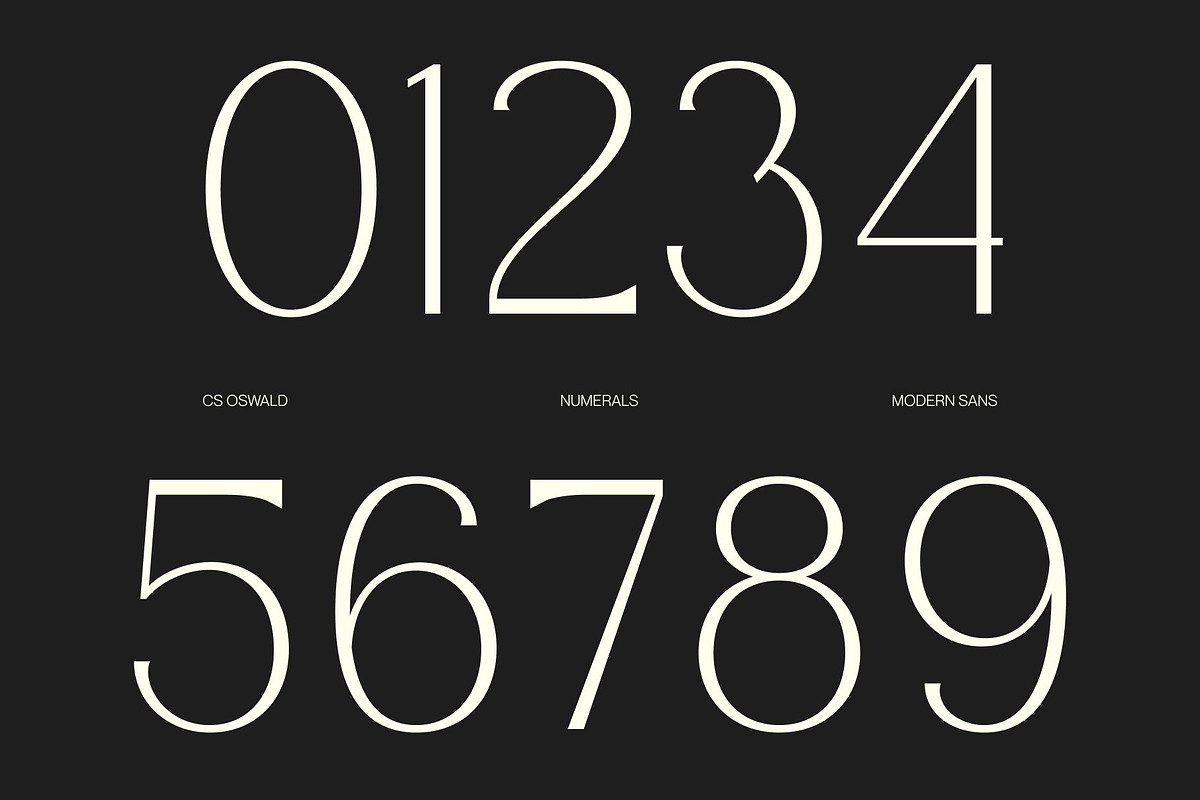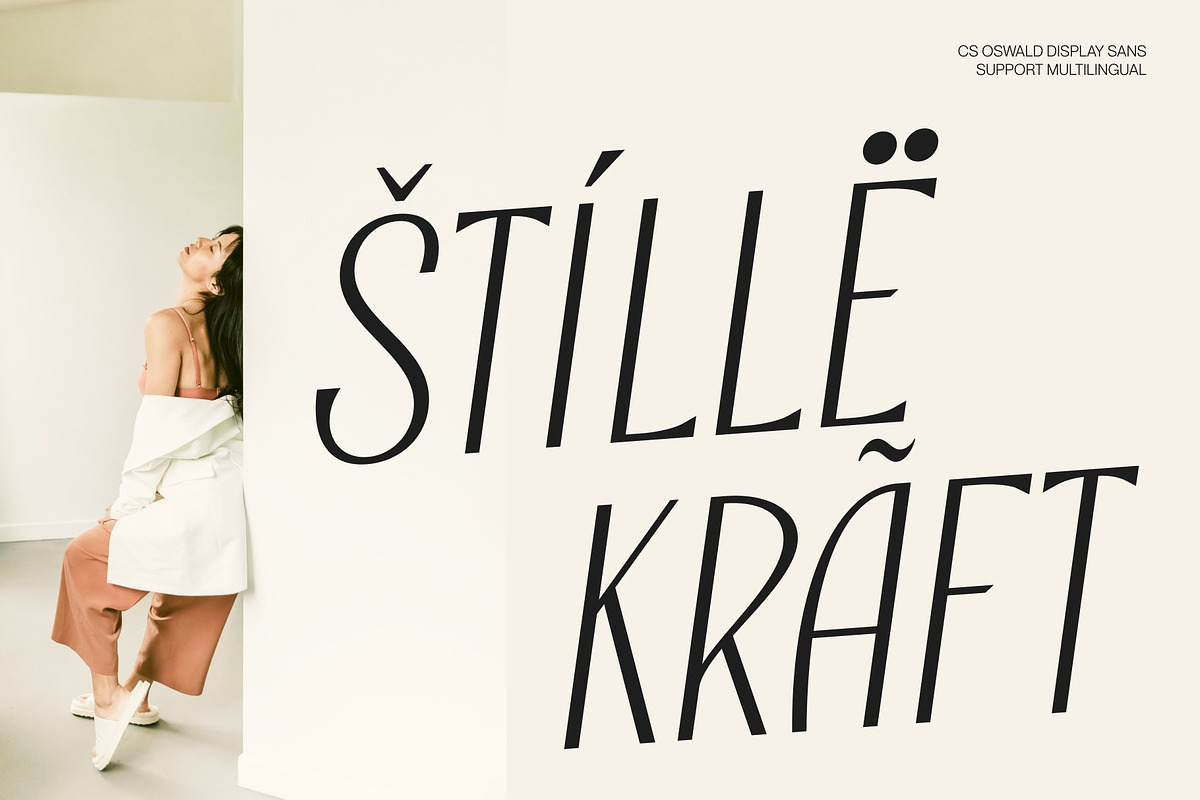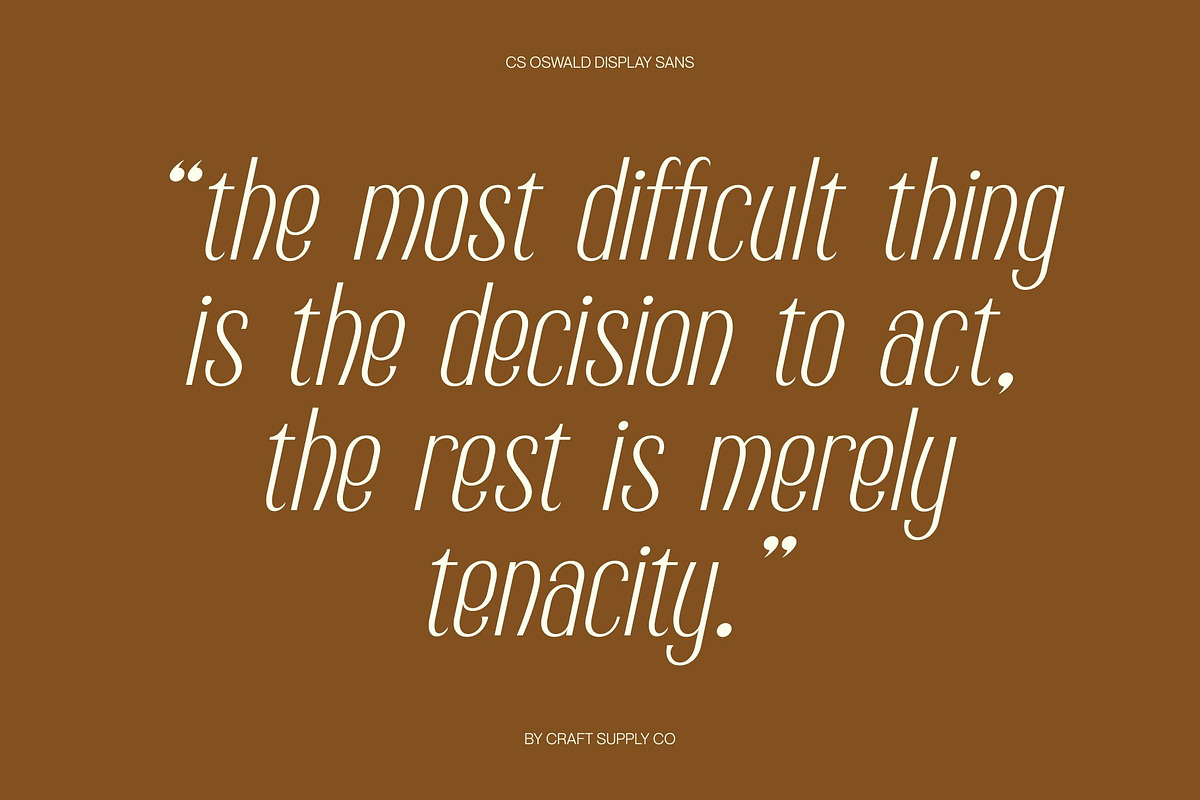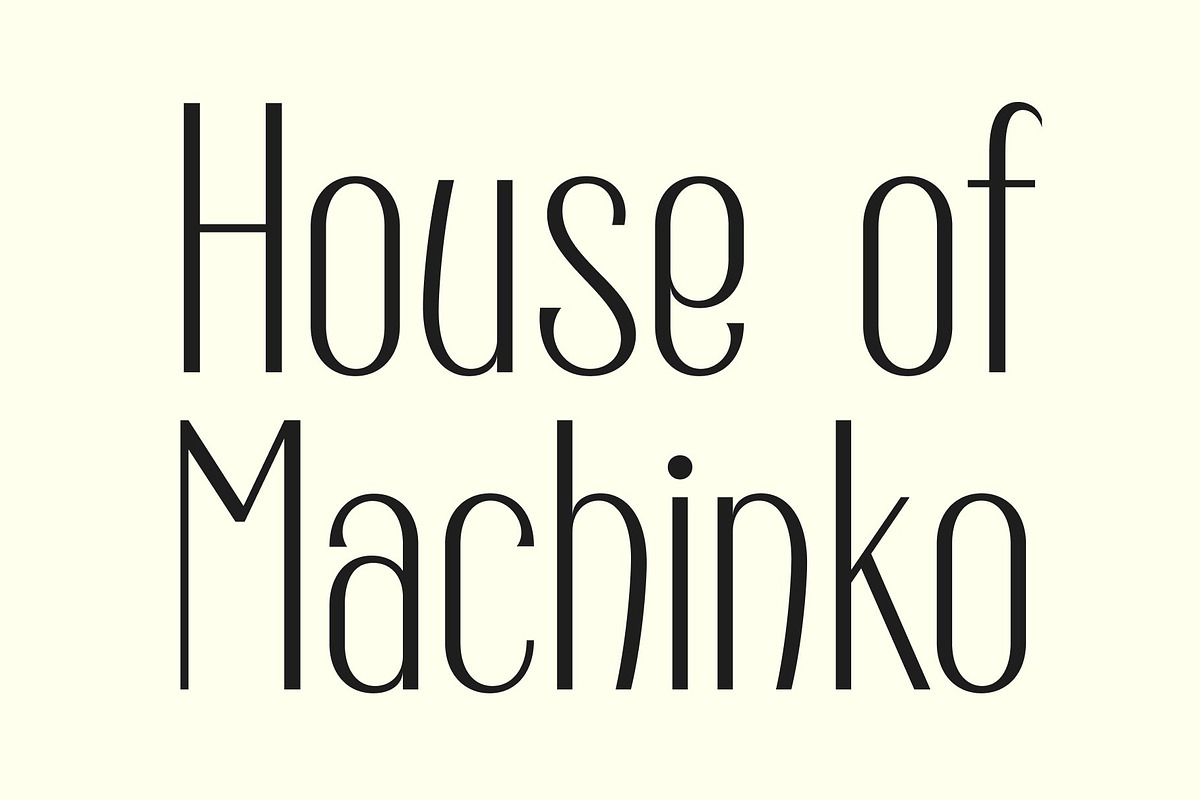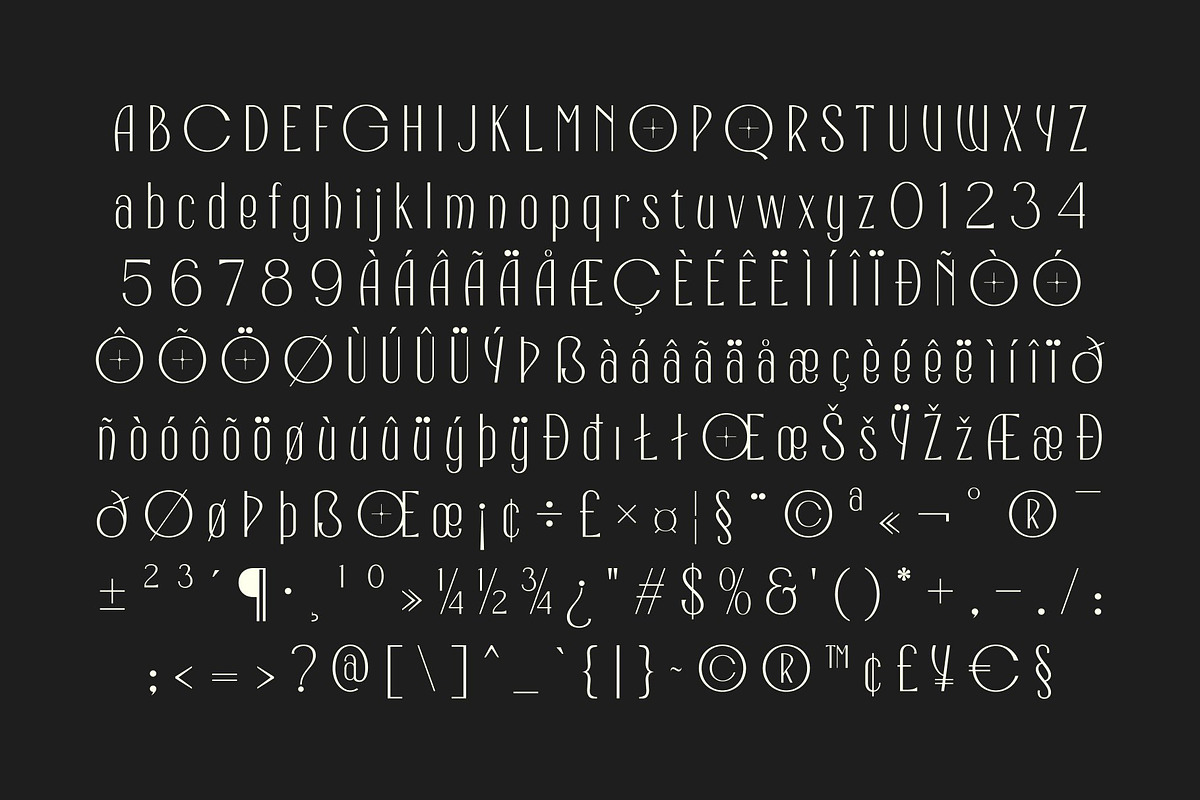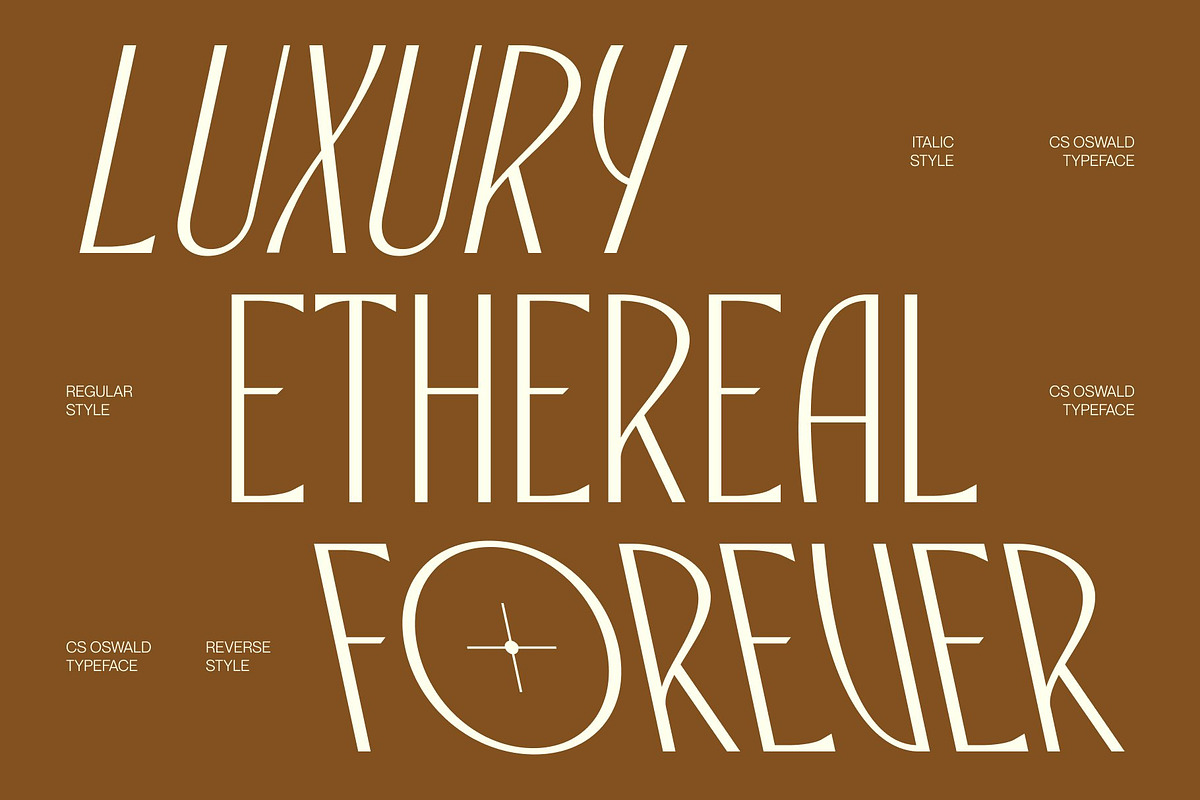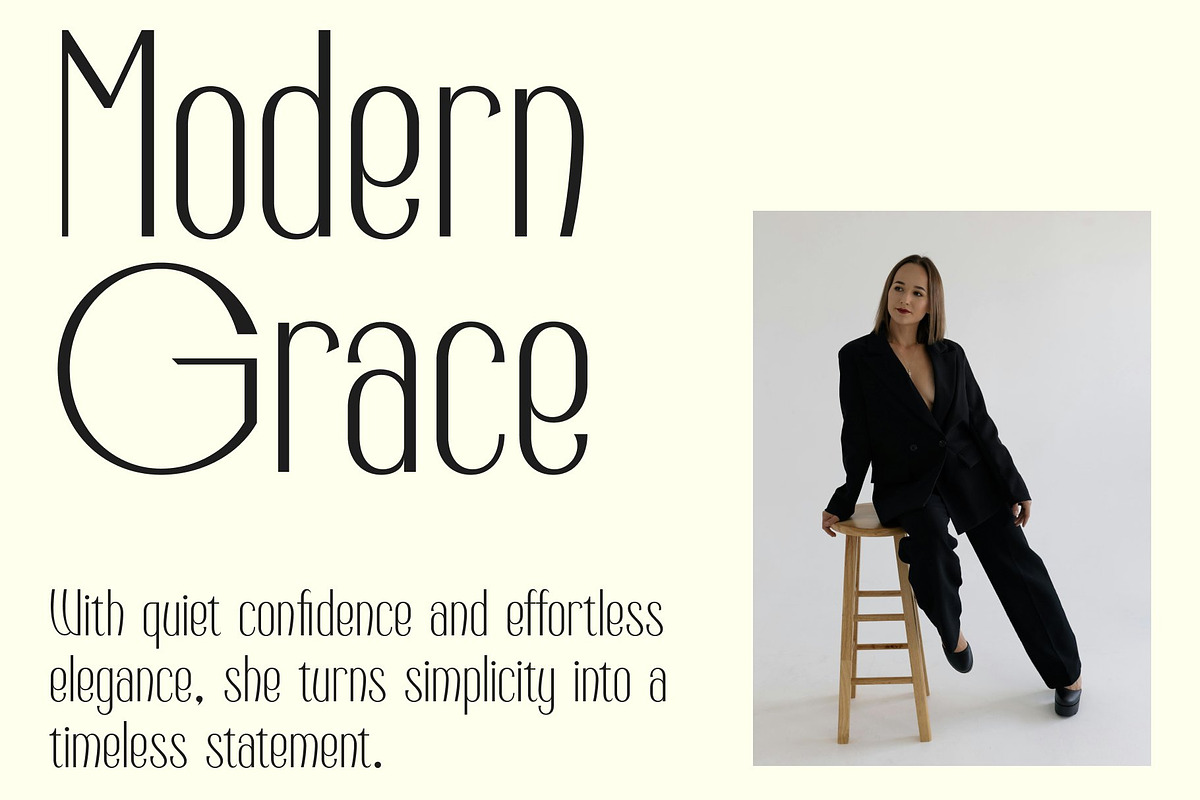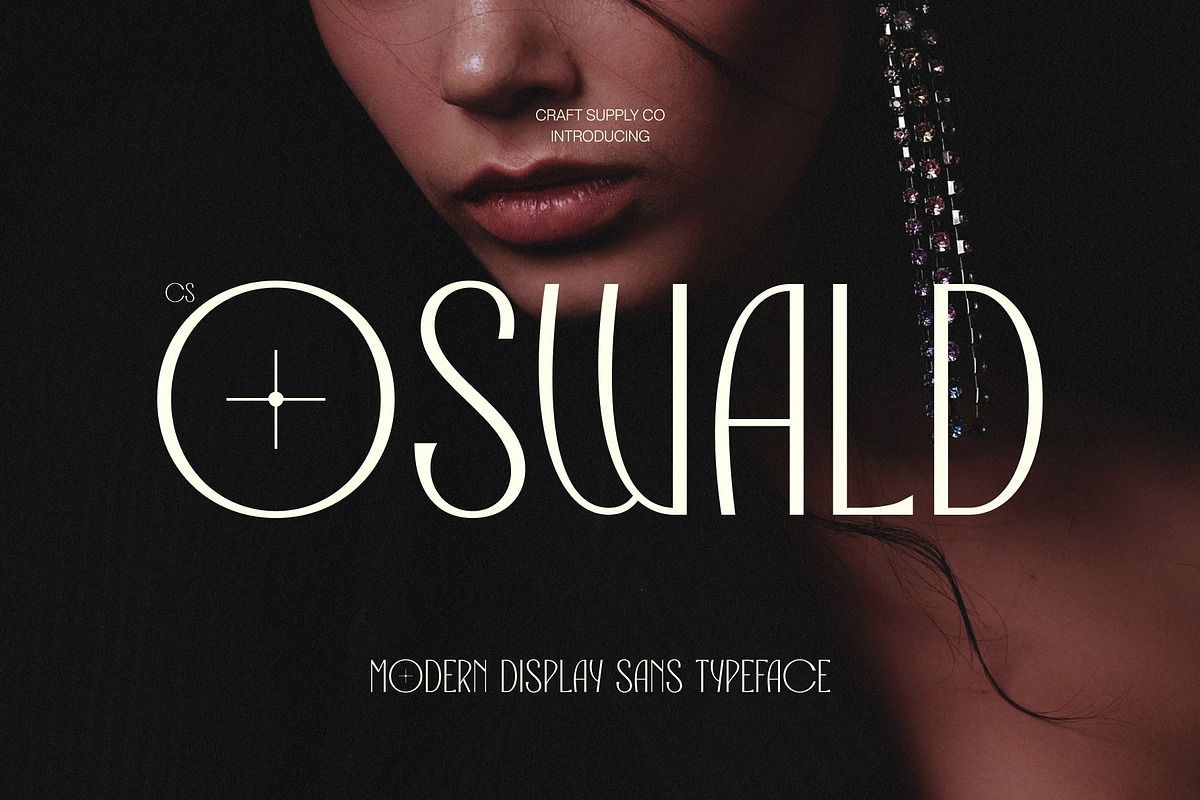
CS Oswald – Modern Sans Serif
CS Oswald – Elegant Sans Serif with Decorative Luxury
Elegant Sans Serif with Refined Contemporary Style This is an elegant sans serif font designed to combine modern sophistication with decorative beauty. Featuring refined curves and elongated proportions, this typeface delivers a graceful and high-end visual presence that feels polished, stylish, and contemporary. It is crafted for designers who seek typography that communicates luxury with subtle artistic flair.
Elongated Details with Decorative Character The defining feature of this font lies in its elongated forms and delicate decorative touches. These elegant details create a flowing visual rhythm that adds personality and refinement to every composition. The extended proportions enhance the font’s luxurious appearance, making headlines feel dramatic and visually captivating.
Contemporary Elegance with Premium Appeal This font balances clean sans serif simplicity with ornamental sophistication, resulting in a typeface that feels modern yet timeless. Its smooth curves and precise construction ensure excellent readability while maintaining a fashionable and premium aesthetic. This balance makes the font versatile across both digital and print media.
Perfect for Luxury Design, Editorials, and Branding From luxury branding and editorial layouts to fashion campaigns and premium packaging, this font provides a versatile typographic solution. Its combination of decorative elegance, contemporary style, and high-end character ensures your designs feel refined, sophisticated, and visually memorable.
CS Oswald Regular
CS Oswald Italic
CS Oswald Reverse Italic